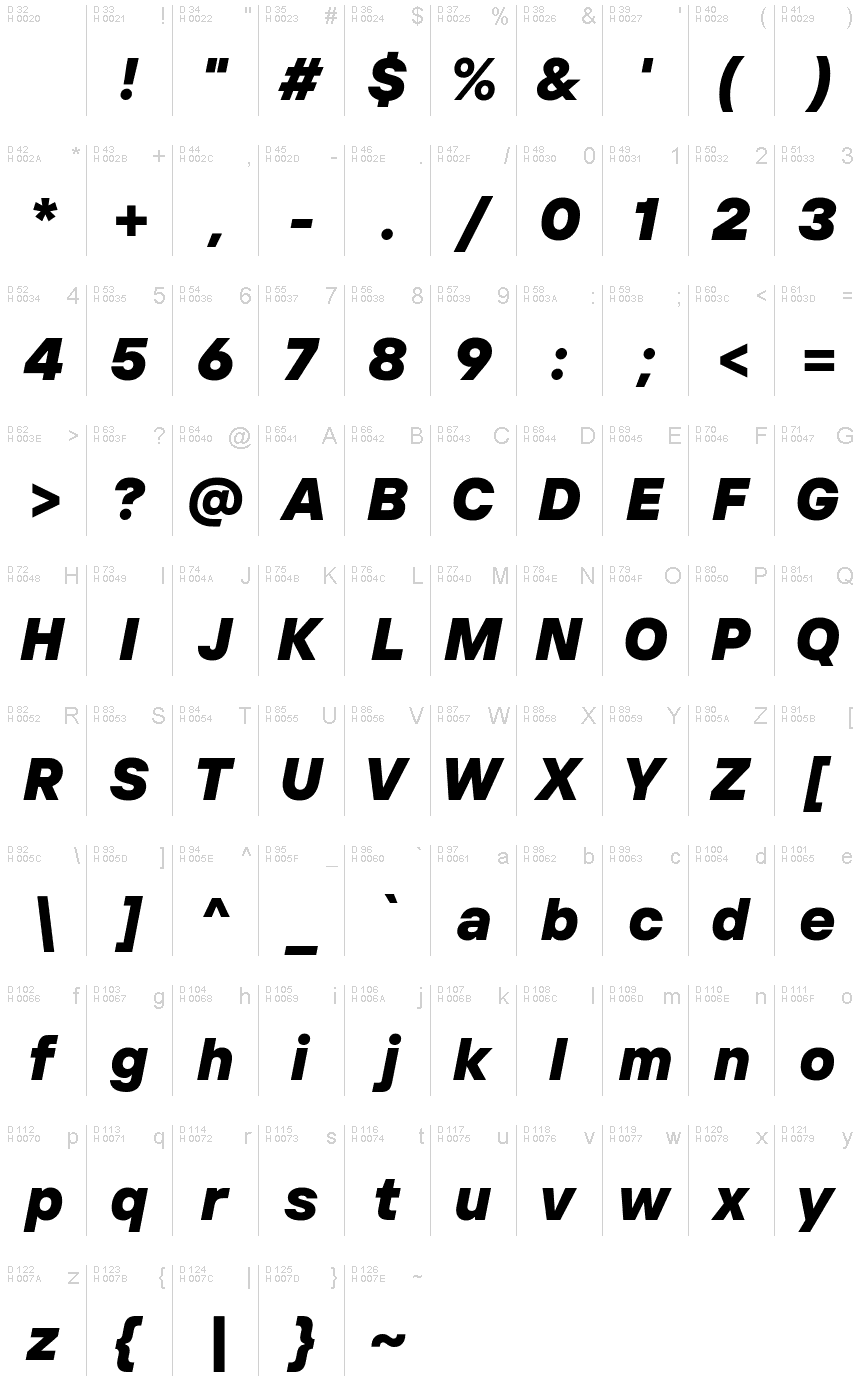
TT Interphases Pro Trl Blc It
TT Interphases Pro Blc It is an ultra-bold, sans serif font from TypeType Foundry. Its strong and impactful design makes it ideal for projects that require a bold statement.
This font type is perfect for headlines, titles, and logos, adding a modern and contemporary touch to any creative endeavor. With its clean lines and sleek curves, TT Interphases Pro Blc It is well-suited for branding materials, advertising campaigns, and web designs that aim to capture attention and leave a lasting impression.
Bring your projects to life with this versatile font that exudes confidence and sophistication.